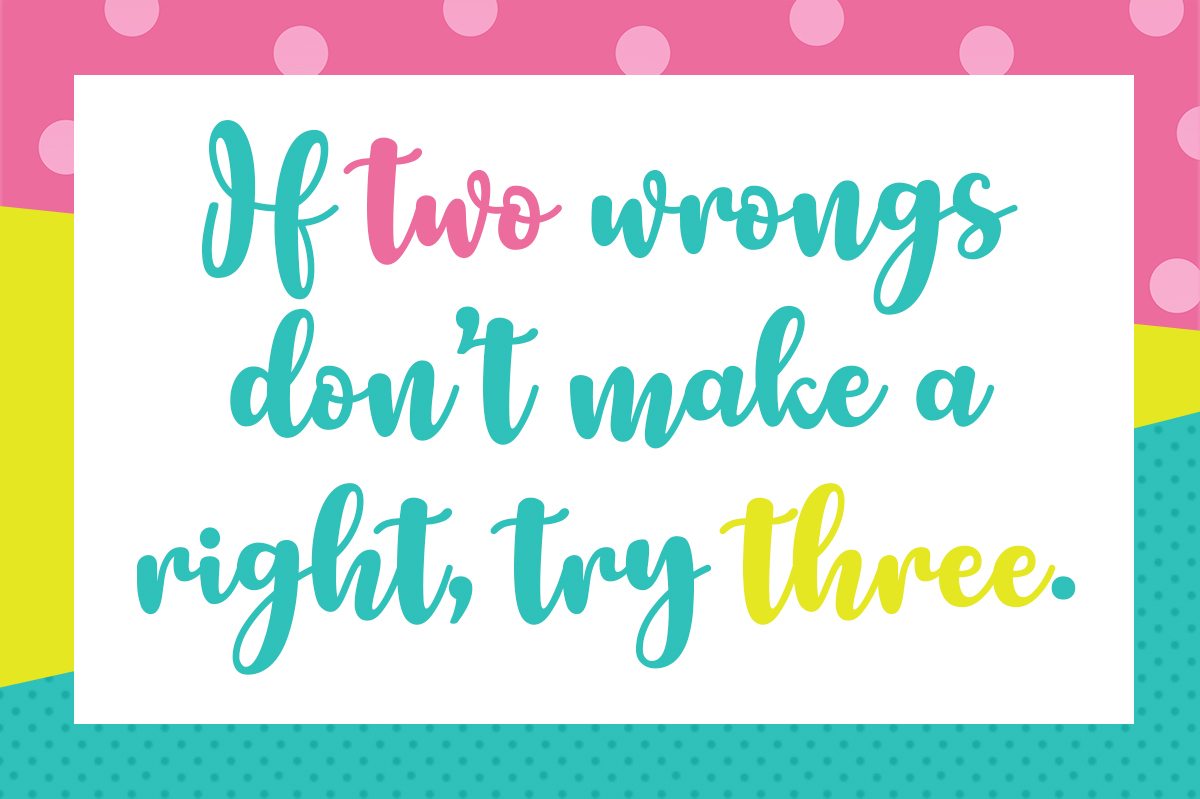
Introducing Delightful Font: The Perfect Addition to Your Design Arsenal
Are you tired of using the same old fonts in your designs? Look no further! Delightful Font is a fun and whimsical script font that’s sure to bring a smile to your face. This charming font is light, friendly, and perfect for adding a comfortable and childlike vibe to your designs.
The Characteristics of Delightful Font
Delightful Font is a script font that’s designed to evoke a sense of playfulness and joy. Its unique characteristics make it perfect for a variety of design projects, from children’s books and educational materials to branding and advertising. Some of the key features of Delightful Font include:
- Whimsical and playful: Delightful Font has a fun and carefree feel that’s perfect for designs that need to appeal to a younger audience.
- Light and friendly: The font has a light and airy feel that’s easy on the eyes and creates a sense of approachability.
- Childlike vibe: Delightful Font has a distinctly childlike quality that’s perfect for designs that need to evoke a sense of innocence and wonder.
Uses for Delightful Font
Delightful Font is a versatile font that can be used in a variety of design projects. Here are some ideas to get you started:
- Children’s books and educational materials: Delightful Font is perfect for children’s books, educational materials, and other projects that need to appeal to a young audience.
- Branding and advertising: The font’s playful and whimsical feel makes it perfect for branding and advertising projects that need to stand out and grab attention.
- Party invitations and decorations: Delightful Font is a great choice for party invitations, decorations, and other celebratory materials that need to create a fun and festive atmosphere.
- Social media graphics and posts: The font’s light and friendly feel makes it perfect for social media graphics and posts that need to engage and entertain your audience.
Tips for Using Delightful Font
Here are some tips for getting the most out of Delightful Font:
- Use it with contrasting fonts: Delightful Font works best when paired with contrasting fonts that provide a clear visual hierarchy.
- Experiment with colors and textures: The font’s playful feel makes it perfect for experimenting with bright colors and fun textures.
- Don’t be afraid to get creative: Delightful Font is a versatile font that can be used in a variety of creative ways, so don’t be afraid to think outside the box.
Why Choose Delightful Font?
So why choose Delightful Font for your next design project? Here are just a few reasons:
- Unique and eye-catching: Delightful Font is a one-of-a-kind font that’s sure to grab attention and stand out from the crowd.
- Easy to read and understand: The font’s light and friendly feel makes it easy to read and understand, even for younger audiences.
- Perfect for a variety of design projects: Delightful Font is a versatile font that can be used in a variety of design projects, from children’s books to branding and advertising.
In conclusion, Delightful Font is a fun and whimsical script font that’s perfect for designers and crafters who want to add a touch of playfulness and joy to their designs. With its unique characteristics, versatility, and ease of use, Delightful Font is sure to become a favorite in your design arsenal. So why wait? Download Delightful Font today and start creating designs that are sure to delight!